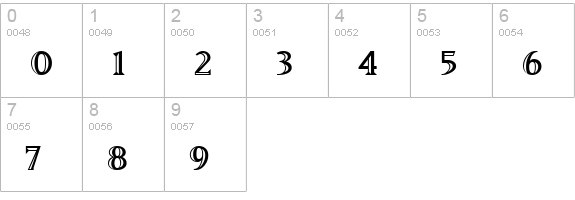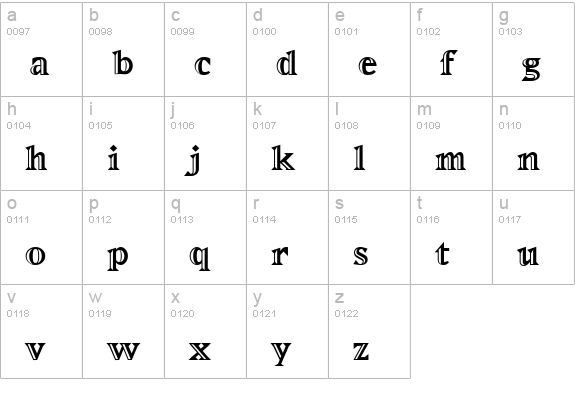
MatrixInlineExtraBoldLining Bold Font Details
MatrixInlineExtraBoldLining Bold is a strong, high-contrast variant in the MatrixInlineExtraBoldLining typeface family \xE2\x80\x94 well suited to headlines, attention-grabbing titles, and strong calls-to-action.
MatrixInlineExtraBoldLining Bold is a striking and commanding font that demands attention with its bold and powerful design. Its extra bold weight exudes confidence and strength, making it an ideal choice for headlines, titles, and other prominent text elements. The sharp lines and precise geometry give this font a modern and sophisticated look that is perfect for conveying a sense of authority and professionalism. This font is not only visually impactful but also versatile, as it can be used for a wide range of design projects across various industries. Whether you are designing a poster, logo, website, or any other creative project, MatrixInlineExtraBoldLining Bold will help your text stand out and make a bold statement. Best of all, this font is available for free download at FontsMarket.com, making it easily accessible for designers and creatives looking to add a touch of boldness to their work. Don't miss out on the opportunity to enhance your designs with this eye-catching and powerful typeface.